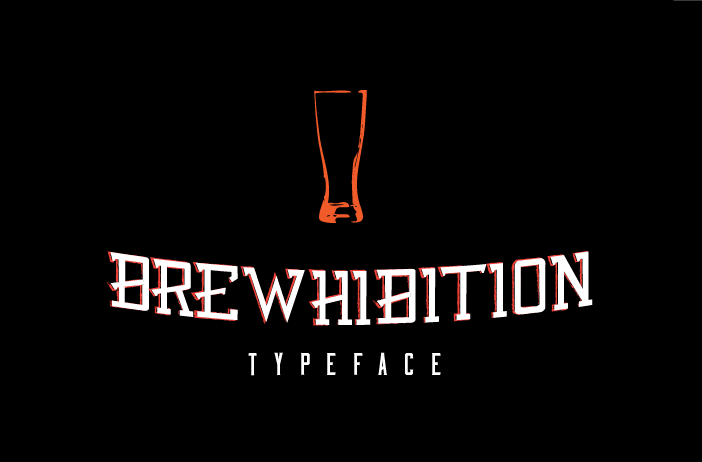
Brewhibition Typeface
Brewhibition is a hand crafted display typeface that comes in 4 different weights that are inspired by the prohibition era and today's craft beer labels. This typeface will be for sale for the very low special price of $5 for 3 custom hand crafted weights
Pilsner: Light Weight Lager: Regular Weight Stout: Display Weight (Not Available Yet) *Under Construction Hefe: Italic Weight